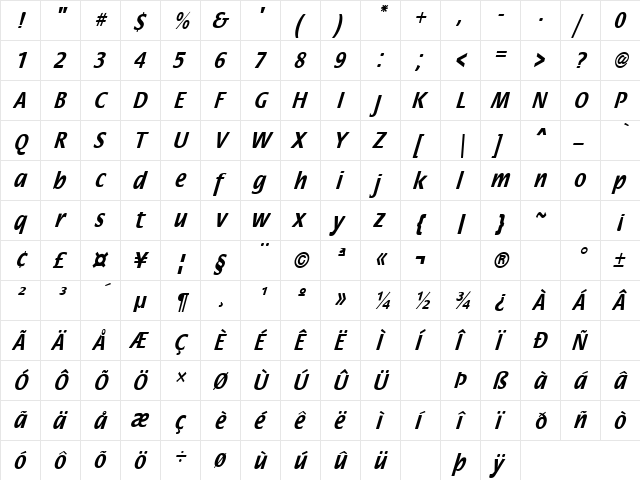
Holy Houses 3 Regular
Design Context for Holy Houses 3 Typeface
Holy Houses 3 takes a measured approach to typography — its balanced proportions and neutral character make it a reliable workhorse for both digital and print work.